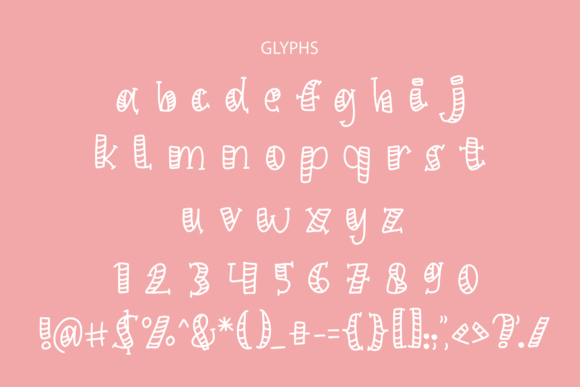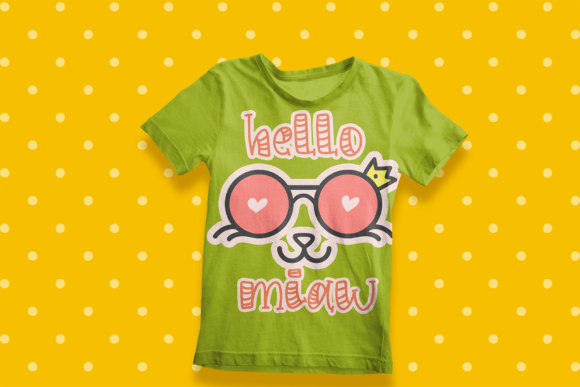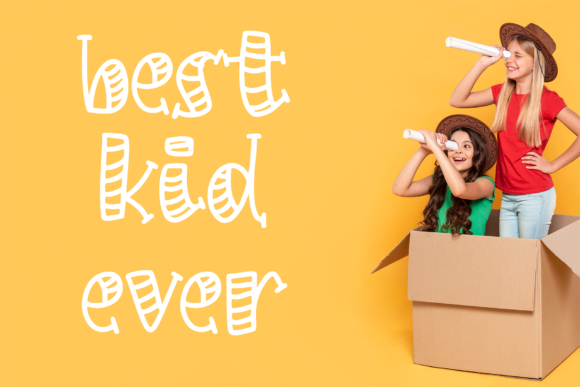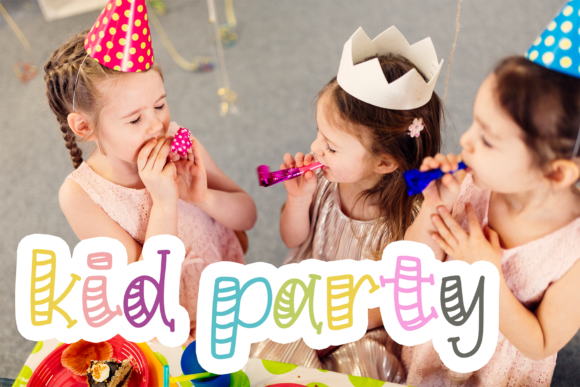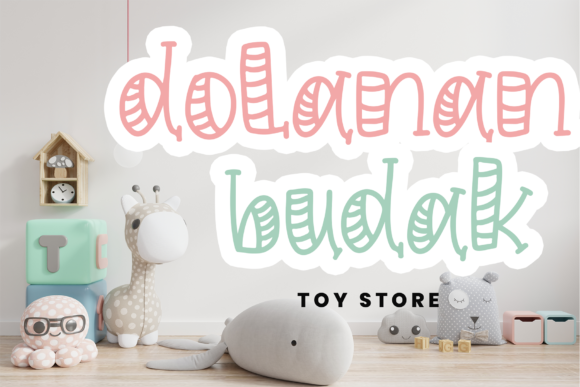
Introducing Arsyi Font: The Quirky and Unique Display Font You Need
Are you tired of using the same old fonts in your designs? Look no further than Arsyi Font, a cute and incredibly unique display font that’s sure to make your projects stand out. With its quirky charm and versatility, Arsyi Font is the perfect addition to any designer’s toolkit.
What Makes Arsyi Font So Special?
Arsyi Font is a one-of-a-kind display font that’s designed to add a touch of personality to your designs. Its unique and quirky style makes it perfect for a wide range of projects, from playful posters and flyers to creative branding and packaging. Whether you’re a designer, crafty DIY enthusiast, or social media influencer, Arsyi Font is sure to bring your ideas to life.
Key Features of Arsyi Font
- Unique and Quirky Style: Arsyi Font boasts a distinctive and offbeat design that’s sure to grab attention.
- Versatile: This font is perfect for a wide range of projects, from posters and flyers to branding and packaging.
- Cute and Playful: Arsyi Font has a charming and whimsical feel that’s perfect for designs that need a touch of personality.
- Easily Readable: Despite its quirky style, Arsyi Font is surprisingly easy to read, making it perfect for headlines and titles.
How to Use Arsyi Font in Your Designs
Arsyi Font is incredibly easy to use and can be incorporated into a wide range of designs. Here are a few ideas to get you started:
- Posters and Flyers: Use Arsyi Font as a headline font to add a touch of personality to your posters and flyers.
- Branding and Packaging: Arsyi Font is perfect for creating unique and eye-catching branding and packaging designs.
- Social Media Graphics: Add a touch of whimsy to your social media graphics with Arsyi Font.
- DIY Crafts: Arsyi Font is perfect for crafty DIY enthusiasts who want to add a personal touch to their projects.
Why Designers and Crafters Love Arsyi Font
Arsyi Font has quickly become a favorite among designers and crafters, and it’s easy to see why. Here are just a few reasons why:
- Unique Style: Arsyi Font offers a unique and distinctive style that’s hard to find in other fonts.
- Easy to Use: Arsyi Font is incredibly easy to use and can be incorporated into a wide range of designs.
- Versatile: This font is perfect for a wide range of projects, from posters and flyers to branding and packaging.
- Cute and Playful: Arsyi Font has a charming and whimsical feel that’s perfect for designs that need a touch of personality.